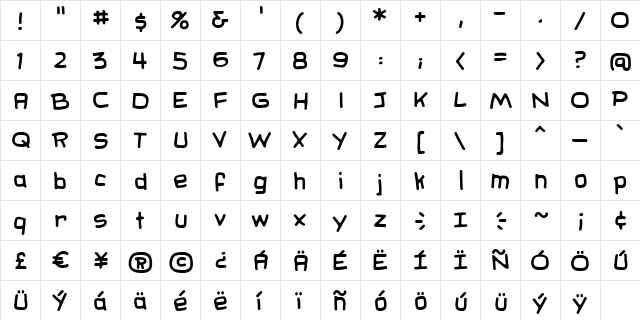
SundayComics BB Regular
Design Context for SundayComics BB Typeface
SundayComics BB has an approachable, lighthearted character — its loose, expressive forms are well-suited to children's content, casual branding, and fun-first design.
Well-suited to food and beverage brands with personality, educational materials, and fun-forward identities.
Font Pairing: Pairs well with a rounded or humanist sans for body copy, maintaining the friendly tone without relying on SundayComics BB to carry extended reading.
Pro Tip: Use SundayComics BB at larger display sizes where its expressive character can land. Pair with a clean, simple sans for body copy to maintain readability.